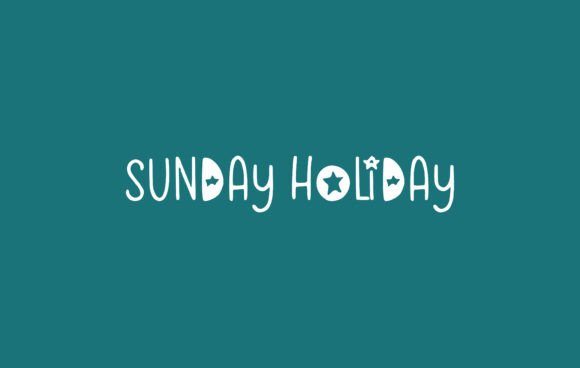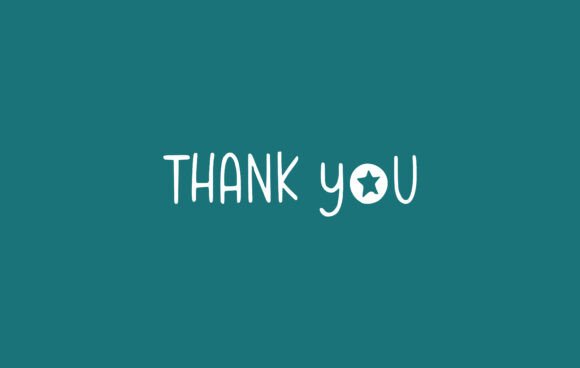
Introduction to Roguedge Font Font
Fonts play a crucial role in design, and the Roguedge Font font is a typeface that brings both character and versatility to any project. Whether you’re working on a branding project, a website, or a print design, the Roguedge Font font offers a unique style that can elevate your work.
RogueEdge is a playful and edgy display font with star-filled characters that bring a whimsical yet rebellious feel.
Perfect for branding, kids’ projects, and fun logo work, this font balances cute charm with a bold personality .
Key Features of Roguedge Font Font
Why Choose Roguedge Font Font?
The Roguedge Font font is more than just a typeface – it’s a design tool that helps you communicate your message with style and clarity. Its unique character set and versatile design make it suitable for a wide range of applications, from elegant invitations to bold headlines.
With its carefully crafted letterforms and balanced proportions, the Roguedge Font font ensures readability and visual appeal across all mediums.
What makes Roguedge Font font special?
The Roguedge Font font stands out with its unique design, exceptional readability, and versatility across various design applications.